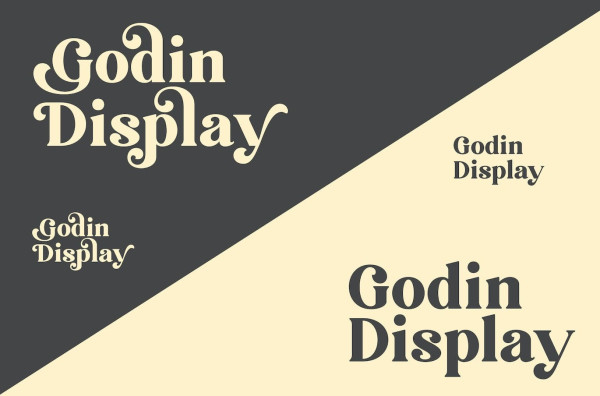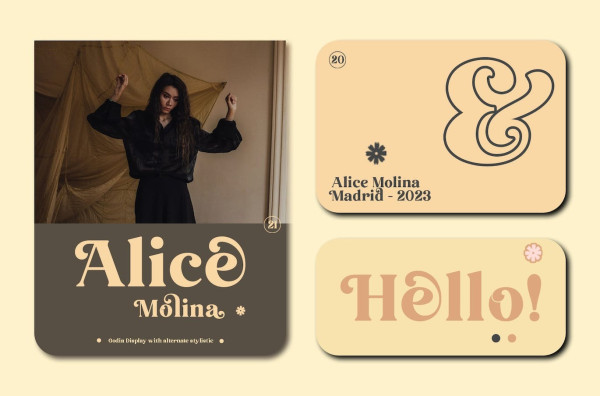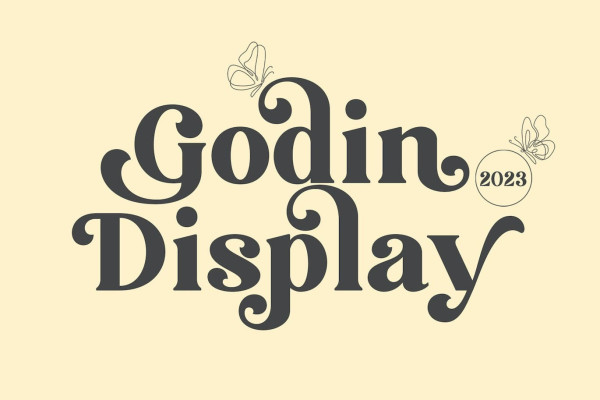
Godin Display Font
Godin Display Font, a Serif display font with a classic, feminine and elegant style, combined with a beautiful alternative designer. The font Godin Display is perfect for various projects like logos and branding, invitations, stationery, wedding designs, social media posts, advertisements, print quotes, product packaging, product designs, labels, photography, watermarks, special events or anything else.